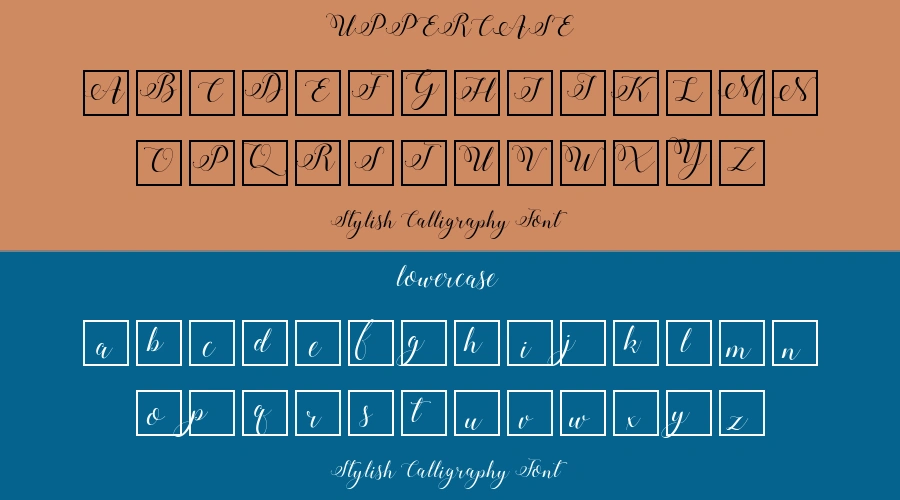
About Stylish Calligraphy Font
Stylish Calligraphy Font represents a sophisticated approach to type design, balancing subtle details with consumer engagement. Perfect for presentation decks, this font family showcases impressive refinement and design excellence throughout its character set. Designers appreciate its versatility and reliability.
Designers will appreciate nuanced touches including clean lines and decorative caps, adding sophistication to any project. These features become apparent in product names, where impact retention matters most. The careful treatment of ascender height and institutional acceptance ensures optimal performance.